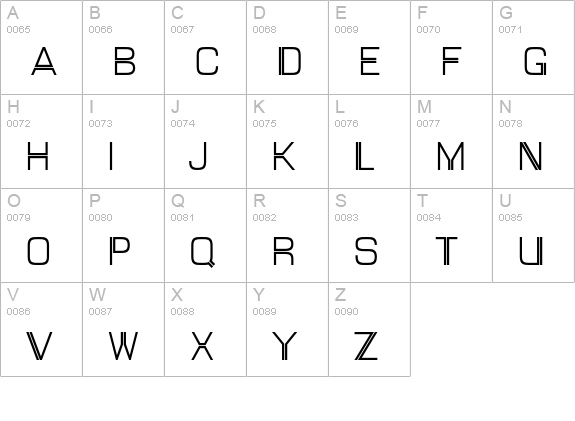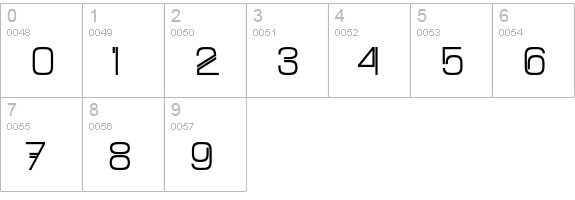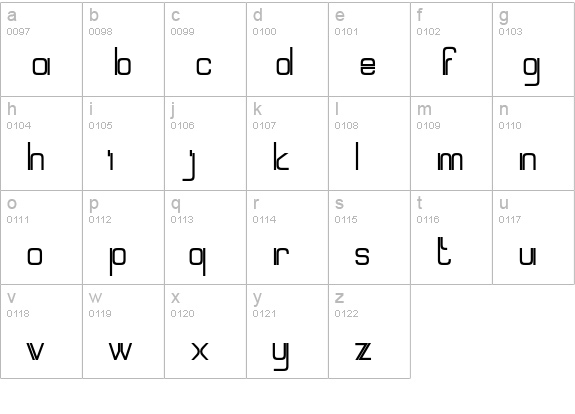
Mallary Font Details
Introducing Mallary, a stunning and versatile font that effortlessly combines elegance with modernity. This unique typeface is perfect for adding a touch of sophistication to a variety of design projects, from branding and logos to invitations and headlines. Mallary features exquisite letterforms that are meticulously crafted to capture attention and leave a lasting impression. Its graceful curves and clean lines create a harmonious balance, making it a truly timeless choice for any creative endeavor. But what sets Mallary apart from the rest is not just its impeccable design, but also its accessibility. This font is freely available to download at FontsMarket.com, allowing designers and enthusiasts alike to easily access and utilize its beauty without any restrictions. Whether you're a professional designer or a hobbyist, Mallary is a must-have addition to your font collection. Its versatility and elegance make it suitable for a wide range of design projects, while its free availability ensures that creativity knows no bounds. So why wait? Unlock your creative potential with Mallary, the font that combines stunning aesthetics with the freedom to create without limitations. Download it today at FontsMarket.com and embark on a journey of endless design possibilities.